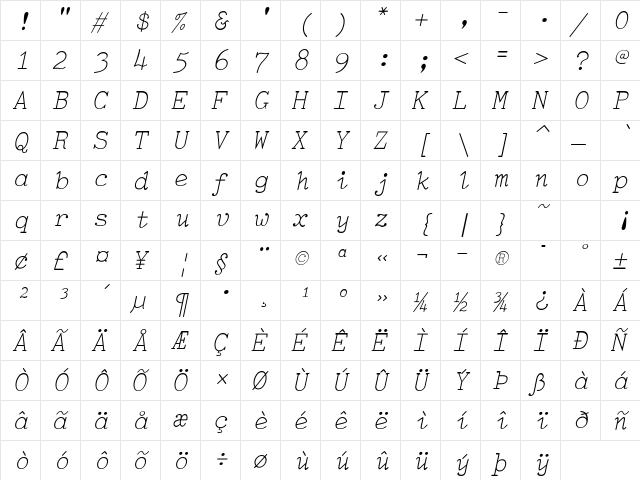
TiredOfCourierThin Italic Font Preview
Design Context for TiredOfCourierThin Typeface
TiredOfCourierThin brings the precise, column-aligned rhythm of monospaced typography to designs that value technical clarity and systematic order. The slanted form adds forward momentum and visual energy. The delicate stroke weight brings airiness and refinement to layouts.